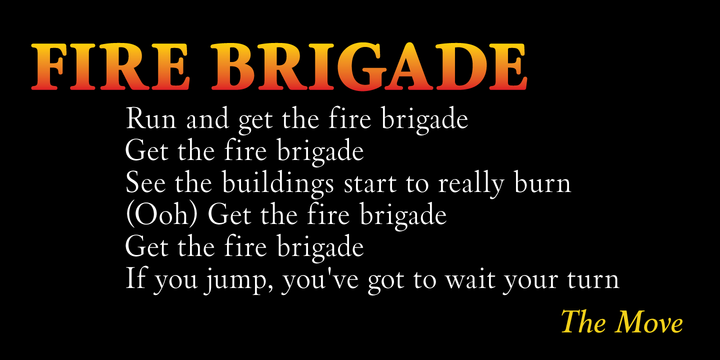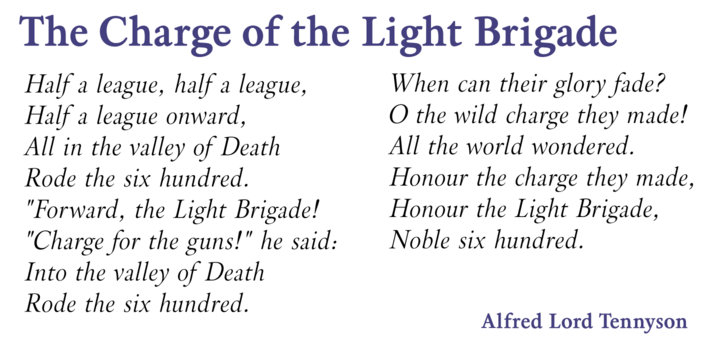
Introducing Brigade Family Font: The Ultimate Roman Typeface
For designers and crafters, finding the perfect font can be a daunting task. With so many options available, it’s easy to get lost in the sea of typefaces. However, what if you could create a font that combines the best features of your favorite Romans? This is exactly what happened with the Brigade Family Font, a unique and versatile typeface that is sure to become a staple in any designer’s toolkit.
The Inspiration Behind Brigade Family Font
The creator of Brigade Family Font had a clear vision in mind when designing this typeface. “In searching for a Roman to use, I found there were bits of Bembo, Times, Garamond, etc., that I liked and bits that I did not. So I set out to take the best bits of all my favorite Romans and tried to create the ultimate Roman Typeface.” This statement encapsulates the inspiration behind Brigade Family Font, which aimed to bring together the best elements of classic Romans to create something entirely new and innovative.
Brigade Family Font boasts a range of design characteristics that make it an attractive option for designers and crafters. With its classic Roman roots, this typeface features:
- Classic letterforms: Brigade Family Font features traditional Roman letterforms with a modern twist, making it perfect for a wide range of design applications.
- Clean lines and curves: The typeface boasts clean lines and curves, ensuring that your text is always legible and visually appealing.
- Versatile weights: Brigade Family Font comes in a range of weights, allowing you to use it for both body text and headings.
What Makes Brigade Family Font Unique?
So, what sets Brigade Family Font apart from other Romans out there? Here are a few key features that make it stand out:
- Unique blend of classic Romans: As mentioned earlier, Brigade Family Font combines the best features of Bembo, Times, Garamond, and other classic Romans to create a truly unique typeface.
- Highly legible: The typeface has been designed with legibility in mind, making it perfect for use in a wide range of applications, from body text to headings.
Use Cases for Brigade Family Font
So, where can you use Brigade Family Font? The answer is almost anywhere! Here are a few ideas to get you started:
- Print design: Use Brigade Family Font in your print designs, such as brochures, flyers, and posters.
- Digital design: The typeface is also perfect for digital design, including website design, social media graphics, and email marketing campaigns.
- Crafting and DIY projects: Brigade Family Font can add a touch of elegance to your crafting and DIY projects, such as handmade cards, invitations, and signs.
| Author | Alan Meeks |
In conclusion, Brigade Family Font is a versatile and unique Roman typeface that is sure to become a staple in any designer’s toolkit. With its classic letterforms, clean lines and curves, and versatile weights, this typeface is perfect for a wide range of design applications. Whether you’re a designer, crafter, or DIY enthusiast, Brigade Family Font is definitely worth checking out.